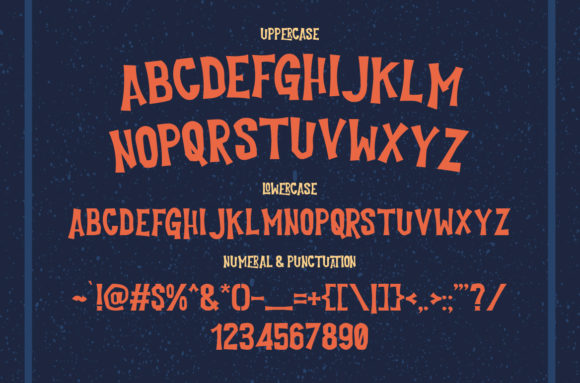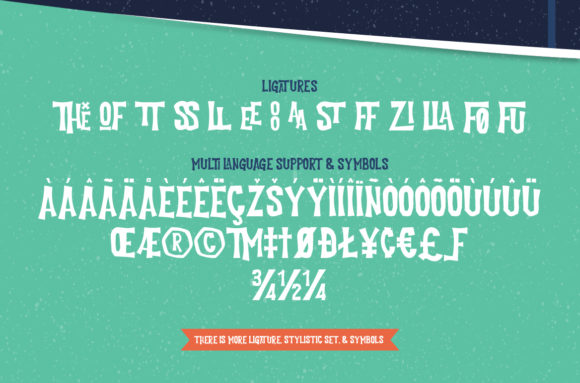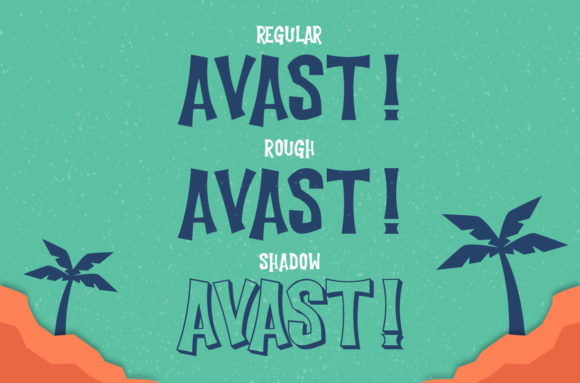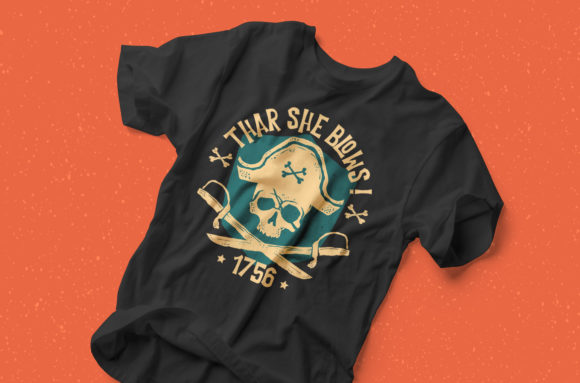
Unleash the Swashbuckling Spirit with Cutlass Typeface: A Font Fit for Horror and Pirate Enthusiasts
Are you a designer or crafty enthusiast looking for a font that embodies the essence of classic horror cartoons and pirate culture? Look no further than the Cutlass Typeface, a bold and fancy font that’s perfect for creating striking designs. Inspired by the eerie and playful world of horror cartoons and the rugged charm of pirate lore, Cutlass is a versatile typeface that’s sure to make your designs stand out.
A Font that’s Strong, Bold, and Fun
Cutlass is a 100% suitable font for designs that require a strong, bold, and playful touch. Whether you’re creating a logo, heading, or quote, this font is sure to make a statement. Its unique blend of handmade extras and vintage poster style elements makes it perfect for a wide range of design applications, from apparel design and invitations to flyers, posters, and product packaging.
What Sets Cutlass Apart
So, what makes Cutlass Typeface so special? For starters, it comes with a range of features that make it incredibly versatile. These include:
- Uppercase and lowercase letters
- Numerals and punctuations
- Ligatures for a more natural look
- Fractions for added flexibility
- Stylistic alternate characters for creative variation
- Multi-language support for global designs
Handmade Extras and Vintage Flair
One of the standout features of Cutlass Typeface is its range of handmade extras, designed to give your designs a unique, vintage flair. These extras can be used on their own, combined with each other, or mixed and matched with the typeface to create a look that’s all your own.
Seasonal DLC: A Unique Bonus
- Regular, Rough, and Shadow versions of the font for added flexibility
Cutlass Typeface is perfect for a wide range of design applications, including:
- Headings and titles
- Quotes and sayings
- Apparel design and merchandise
- Invitations and event design
- Flyers and brochures
- Posters and prints
- Product packaging and labeling
- Book covers and publishing
- Movies and video productions
- Games and interactive design